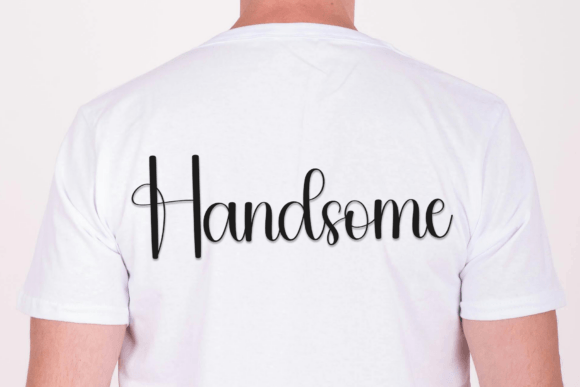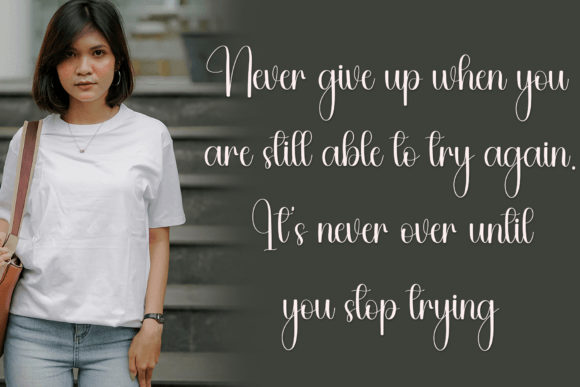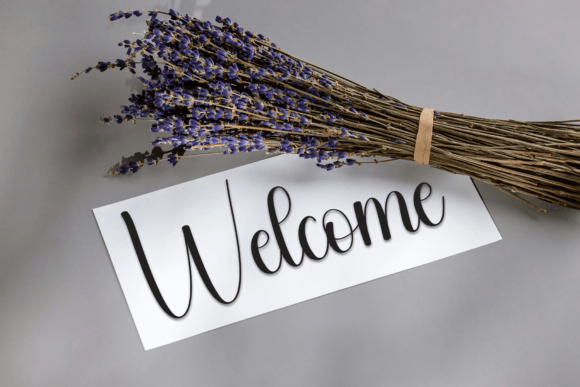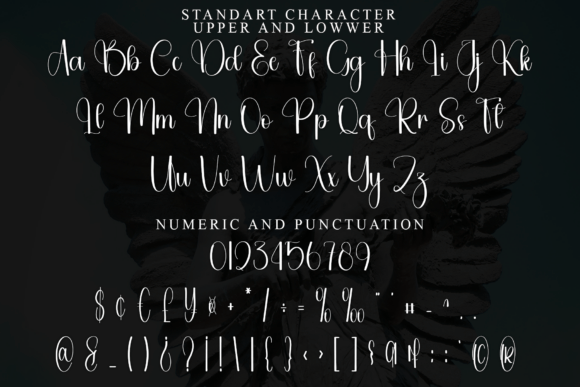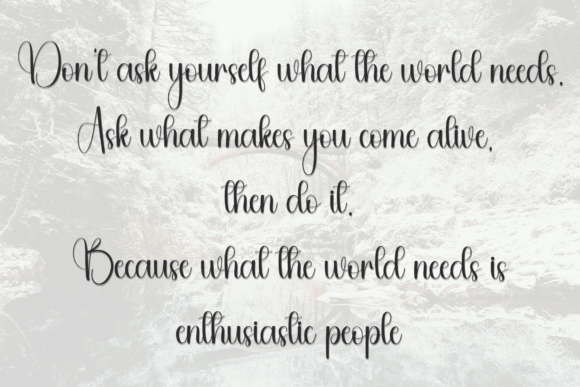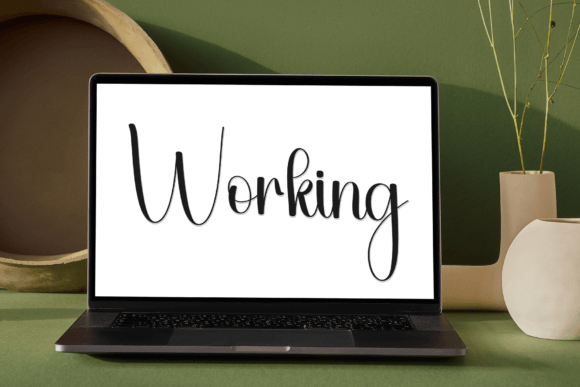
Introducing Christmas Yesterday Font: A Charming Handwritten Delight
Are you looking for a font that captures the warmth and friendliness of the holiday season? Look no further than Christmas Yesterday Font, a casual handwritten font that exudes a relaxed and approachable feel. With its rounded, playful strokes, this font is perfect for personal projects, invitations, and social media graphics that require a touch of whimsy and charm.
The Characteristics of Christmas Yesterday Font
Christmas Yesterday Font is a carefully crafted font that boasts a unique, hand-drawn aesthetic. Its rounded strokes and playful curves give it a friendly and approachable feel, making it perfect for designs that require a personal touch. The font’s casual nature makes it ideal for a variety of projects, from holiday cards and invitations to social media graphics and blog posts.
Why Choose Christmas Yesterday Font?
So, why choose Christmas Yesterday Font for your next design project? Here are just a few reasons why this font stands out:
- Warm and Friendly: Christmas Yesterday Font has a warm and friendly feel that’s perfect for holiday designs. Its rounded strokes and playful curves evoke a sense of comfort and approachability.
- Versatile: This font is versatile and can be used for a variety of projects, from personal invitations to social media graphics.
- Hand-Drawn Aesthetic: The font’s hand-drawn aesthetic adds a delightful, whimsical touch to any design. Its unique character makes it stand out from more traditional fonts.
- Easy to Read: Despite its playful nature, Christmas Yesterday Font is easy to read, making it perfect for designs that require a clear and concise message.
Using Christmas Yesterday Font in Your Designs
Christmas Yesterday Font is easy to use and can be incorporated into a variety of design projects. Here are a few ideas to get you started:
- Holiday Cards and Invitations: Use Christmas Yesterday Font to create personalized holiday cards and invitations that exude warmth and friendliness.
- Social Media Graphics: Add a touch of whimsy to your social media graphics with Christmas Yesterday Font. It’s perfect for creating festive and engaging content.
- Blog Posts: Use Christmas Yesterday Font to add a personal touch to your holiday blog posts. Its casual nature makes it perfect for creating a relaxed and approachable tone.
- Crafting Projects: Christmas Yesterday Font is also perfect for crafting projects, such as making personalized gift tags, banners, and other decorations.
Tips for Getting the Most Out of Christmas Yesterday Font
To get the most out of Christmas Yesterday Font, here are a few tips to keep in mind:
- Pair it with Other Fonts: Christmas Yesterday Font pairs well with other fonts, such as bold sans-serif fonts or elegant script fonts. Experiment with different combinations to find the perfect look for your design.
- Use it in Large and Small Sizes: Christmas Yesterday Font is clear and easy to read in both large and small sizes. Use it for headings, subheadings, and body copy to create a cohesive look.
- Add Decorations: Add decorations, such as holly or snowflakes, to your design to enhance the holiday theme.
Christmas Yesterday Font is a charming handwritten font that’s perfect for designers and crafters looking to add a touch of warmth and friendliness to their designs. Its rounded, playful strokes and hand-drawn aesthetic make it ideal for holiday cards, invitations, social media graphics, and crafting projects. With its versatility, ease of use, and whimsical charm, Christmas Yesterday Font is sure to become a favorite in your design arsenal.